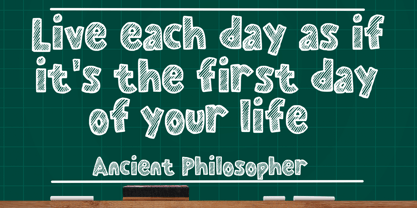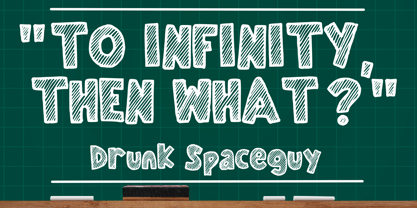
Chalk Sketch
von Mvmet
Die Schriftfamilie Chalk Sketch wurde von Gabriel Valentinus entworfen und von Mvmet veröffentlicht. Chalk Sketch enthält 1 Stile. Mehr über diese Familie
Chalk Sketch is a fun and playful handwritten, chalk textured font that you can use for all chalkboard quotes or teaching material! Its authentic look will add a personal and realistic feel to your designs. It works great for creating cool designs that scream for attention. It’s ideal for anything ranging from t-shirts, book designs, restaurant menus, blog writing, and greeting cards to stickers, or anything that needs a casual touch. Fall in love with its incredibly cool style, and use it to create lovely designs!
Designer: Gabriel Valentinus
Foundry: Mvmet
Mvmet is an Indonesia-based font studio which began making fonts in early 2020. Mvmet strives to make fonts fun and accessible for both the average computer user and professional designers, with original experimental fonts and affordable trend-setting commercial fonts. Mvmet also creates custom fonts for companies who want exclusive rights and a specific design for a typeface. Clients who have used Mvmet’s custom font services include some company in Indonesia and abroad.